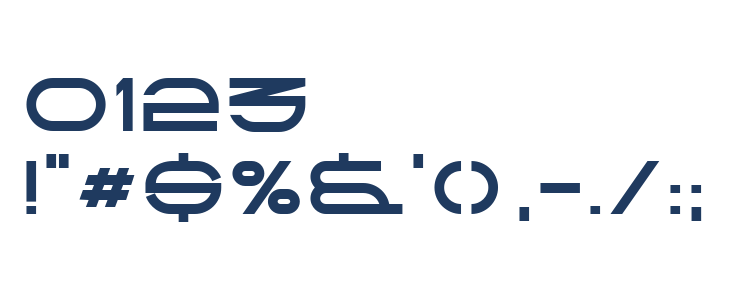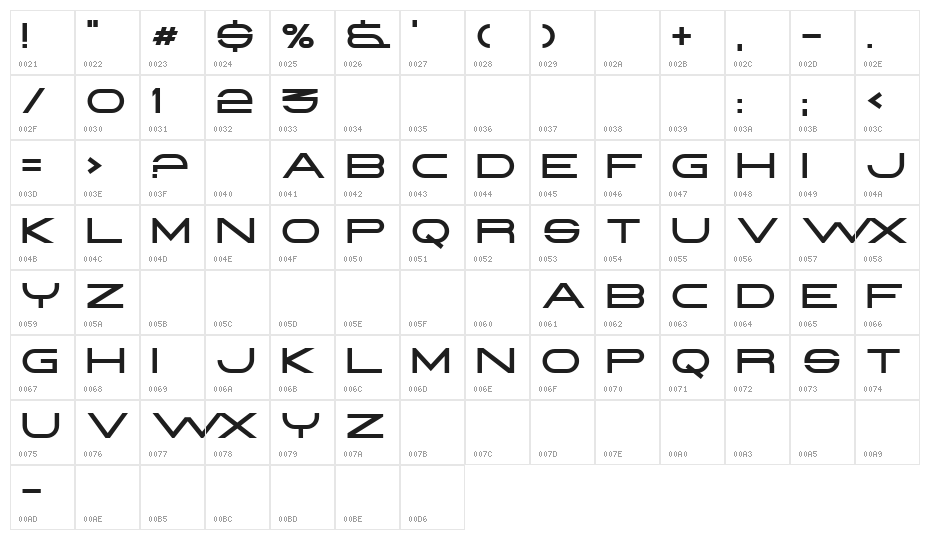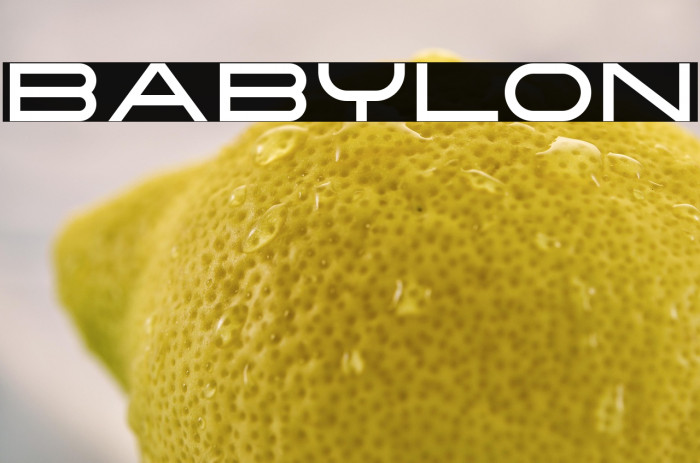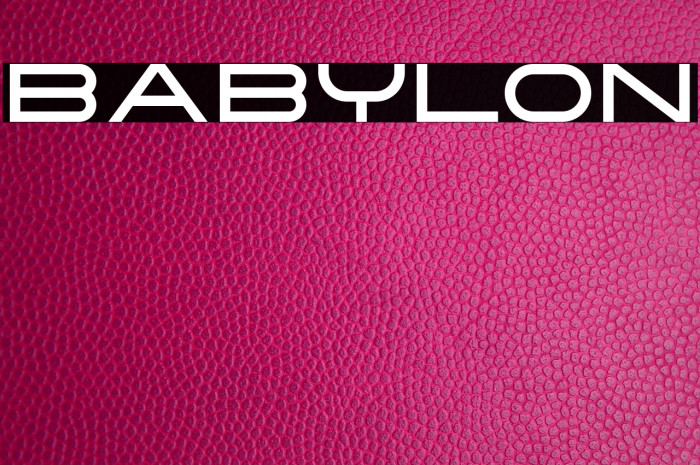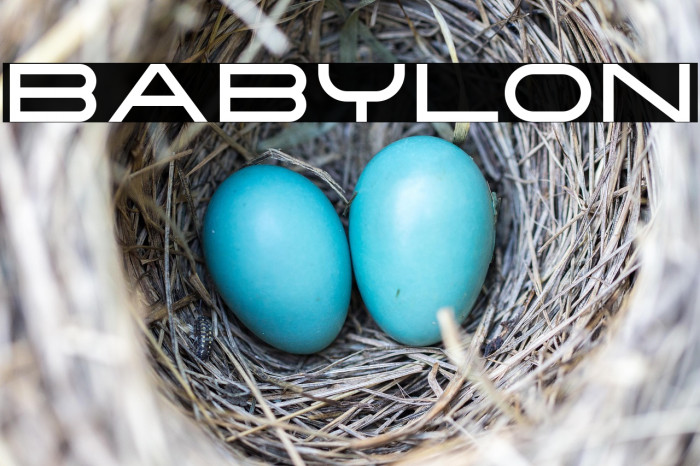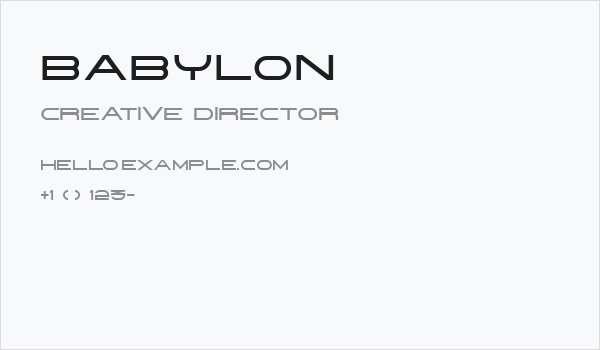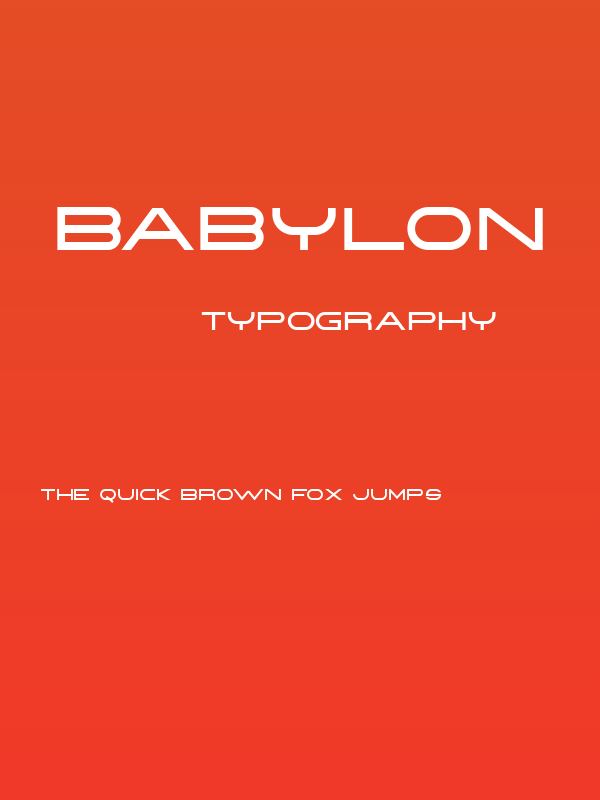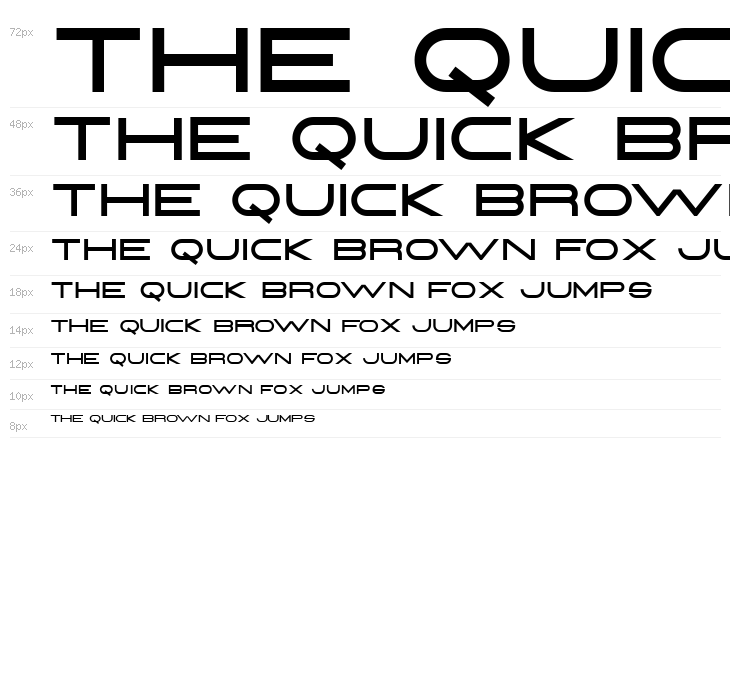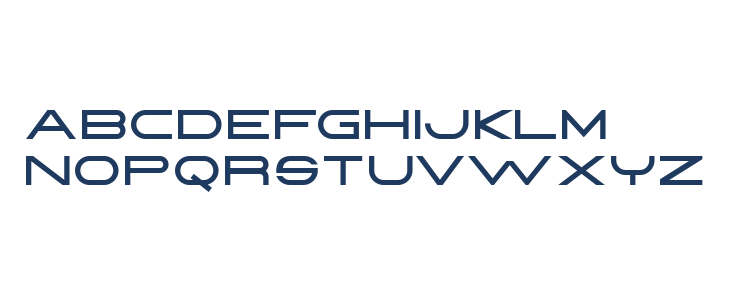
This font features a modern and futuristic design with clean, geometric lines and a sleek appearance. The uppercase letters are bold and angular, with a distinct emphasis on symmetry and balance. The lowercase letters maintain the same geometric style, offering a cohesive look across all characters. Numbers are equally bold and follow the same design principles, ensuring readability and consistency. Special characters are uniquely styled to match the overall aesthetic, making this font suitable for a variety of creative applications. Its distinct style makes it ideal for projects that require a contemporary and innovative touch.
| Proposed Projects | Ideal for technology branding, sci-fi themed projects, modern advertising, and innovative product packaging. |